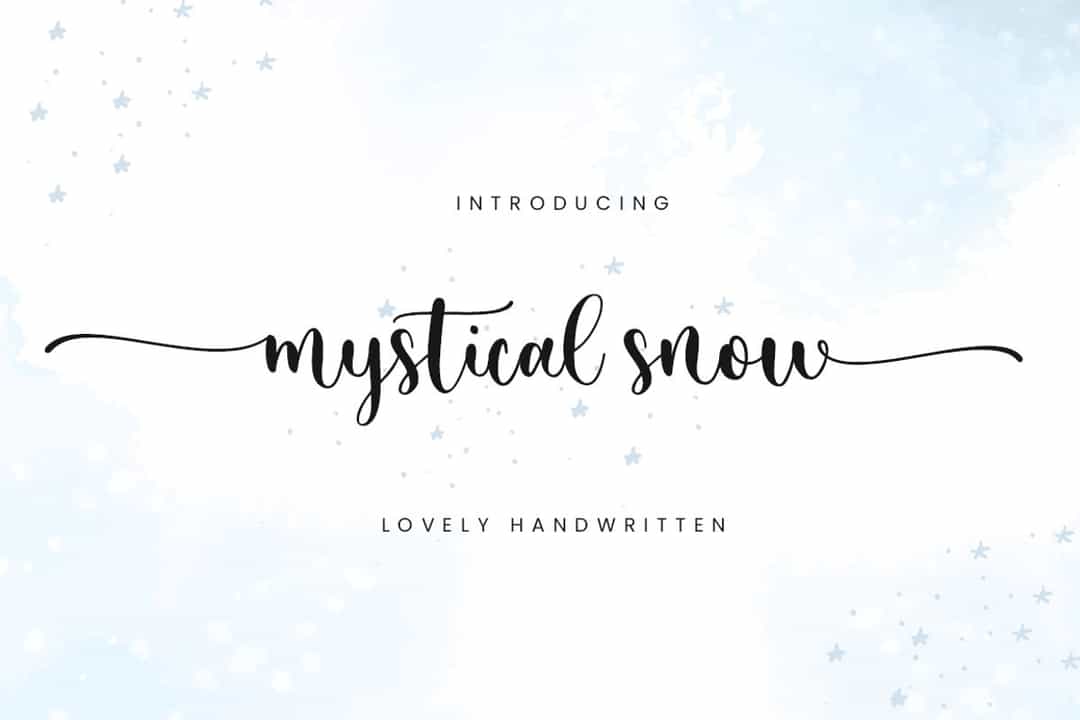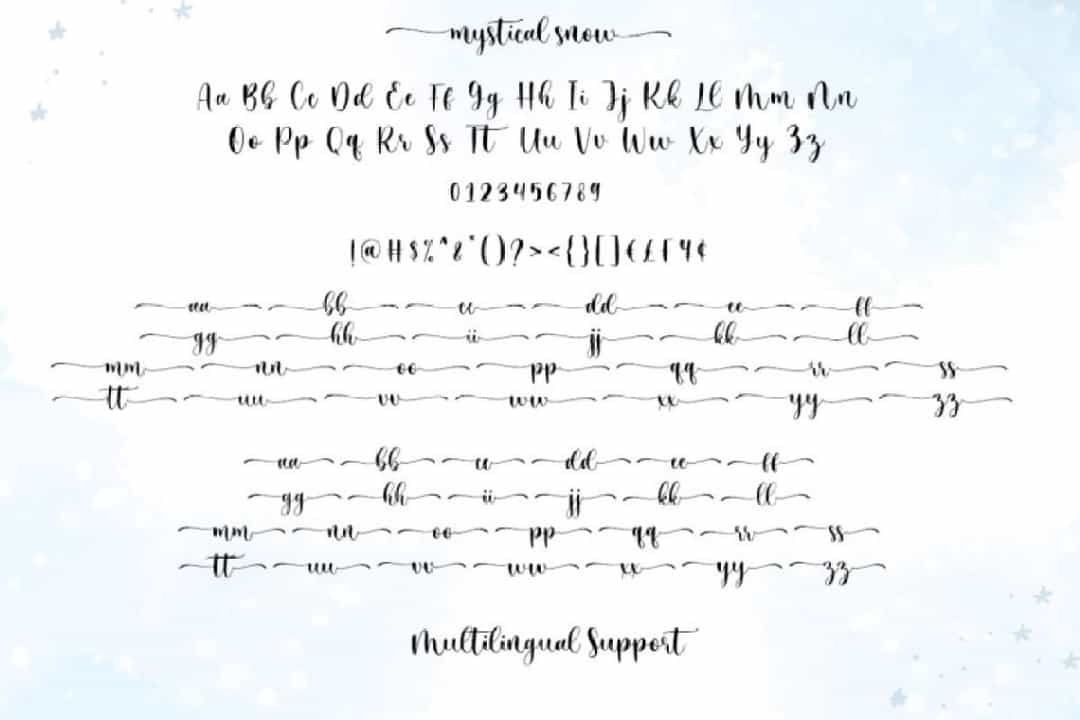
Discover Mystical Snow Calligraphy Script Font, part of the Calligraphy Handwritten Script collection—a versatile and unique font perfect for adding a personal touch to your projects. Download it for free and enjoy crafting designs with style, from invitations to social media posts. This font is available exclusively for personal use, giving you the freedom to create without limits. Unlock your creativity with Mystical Snow Calligraphy Script Font today!
Mystical Snow can be used as an elegant calligraphic font that suits the creation of brand logo invitation cards and stationery wedding design social media ads packaging and labeling watermarks photography and any other occasion!